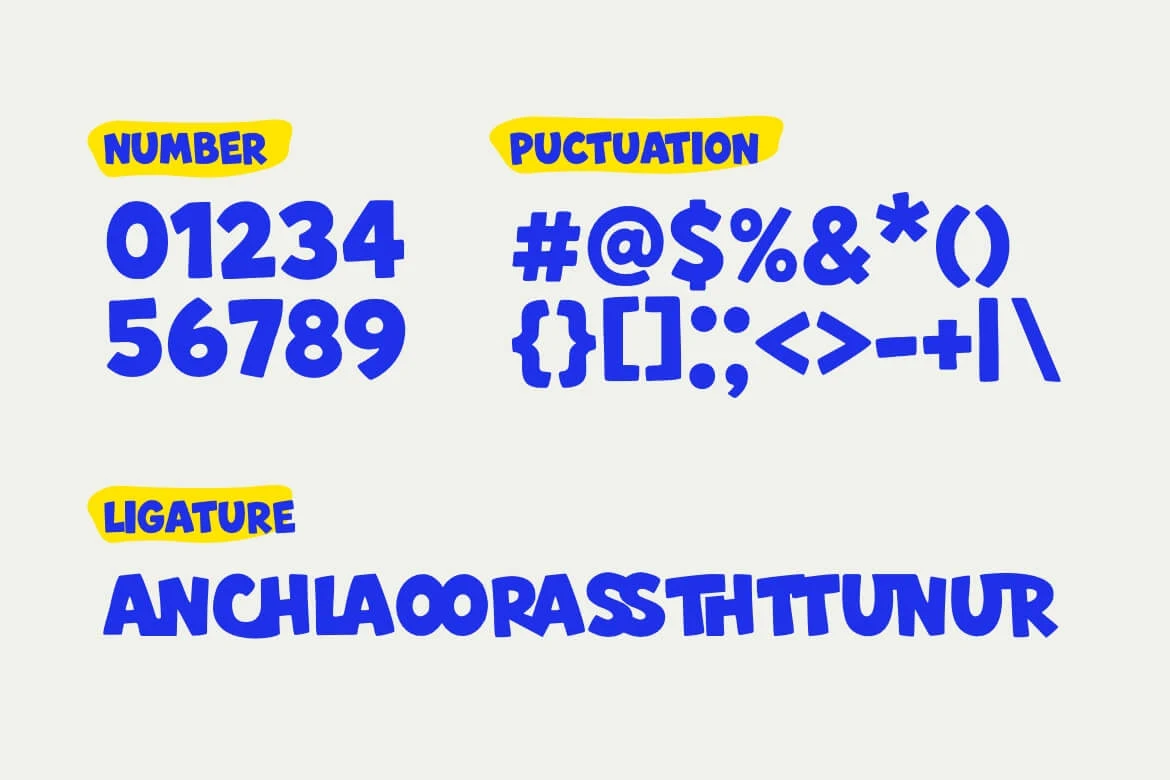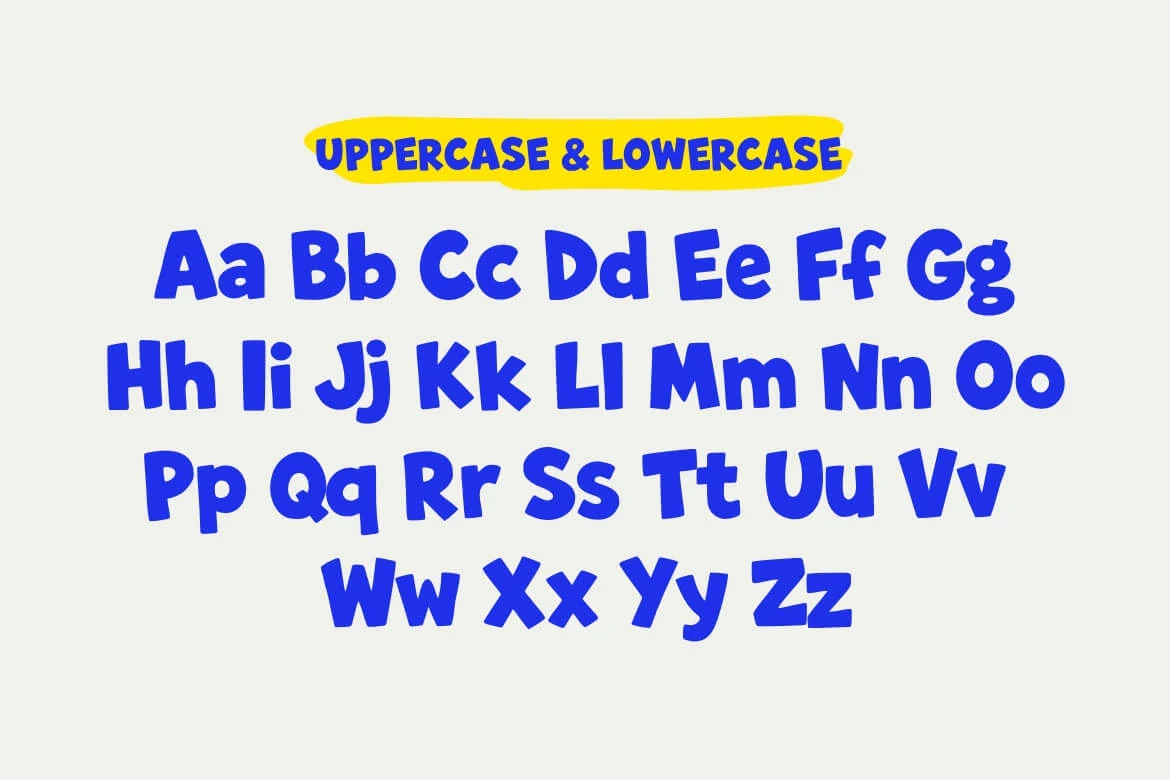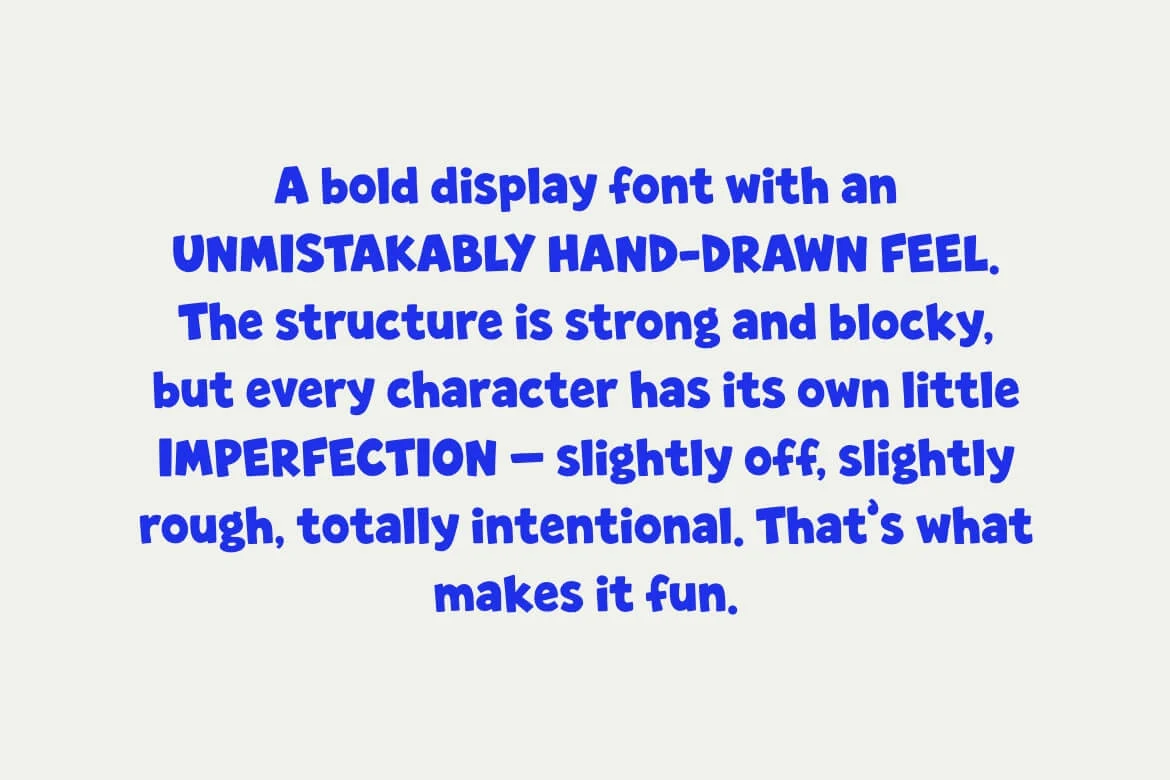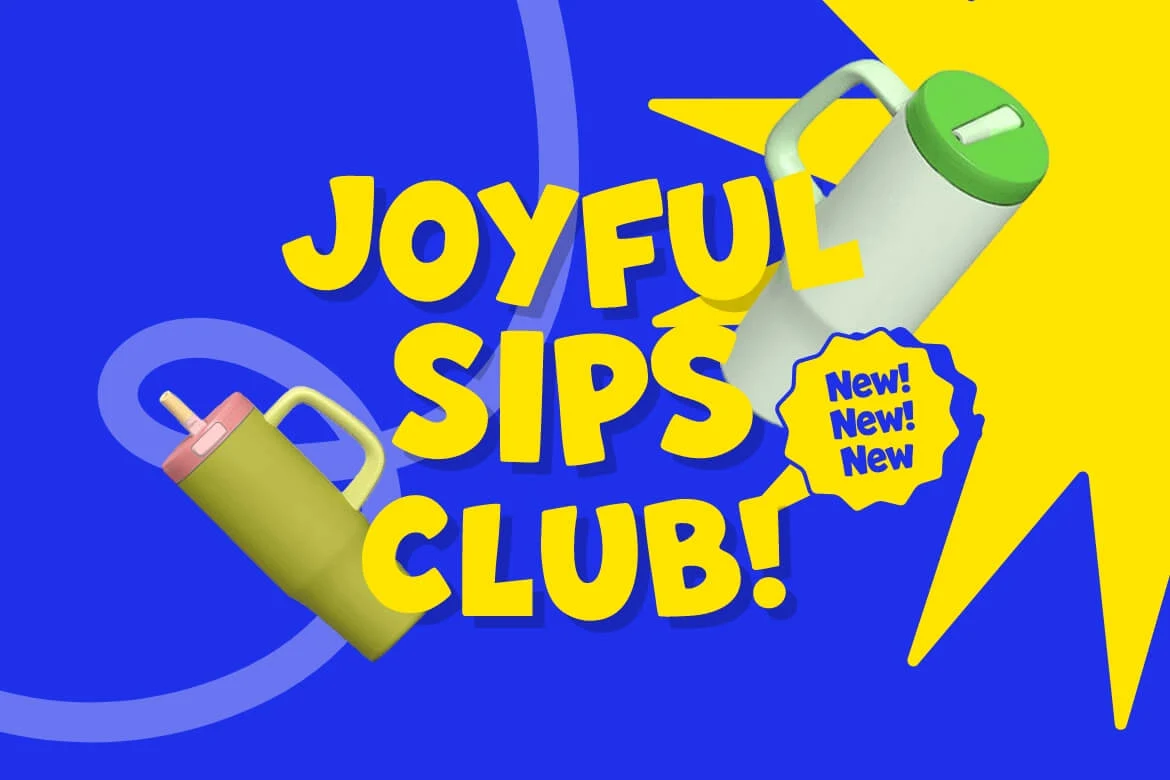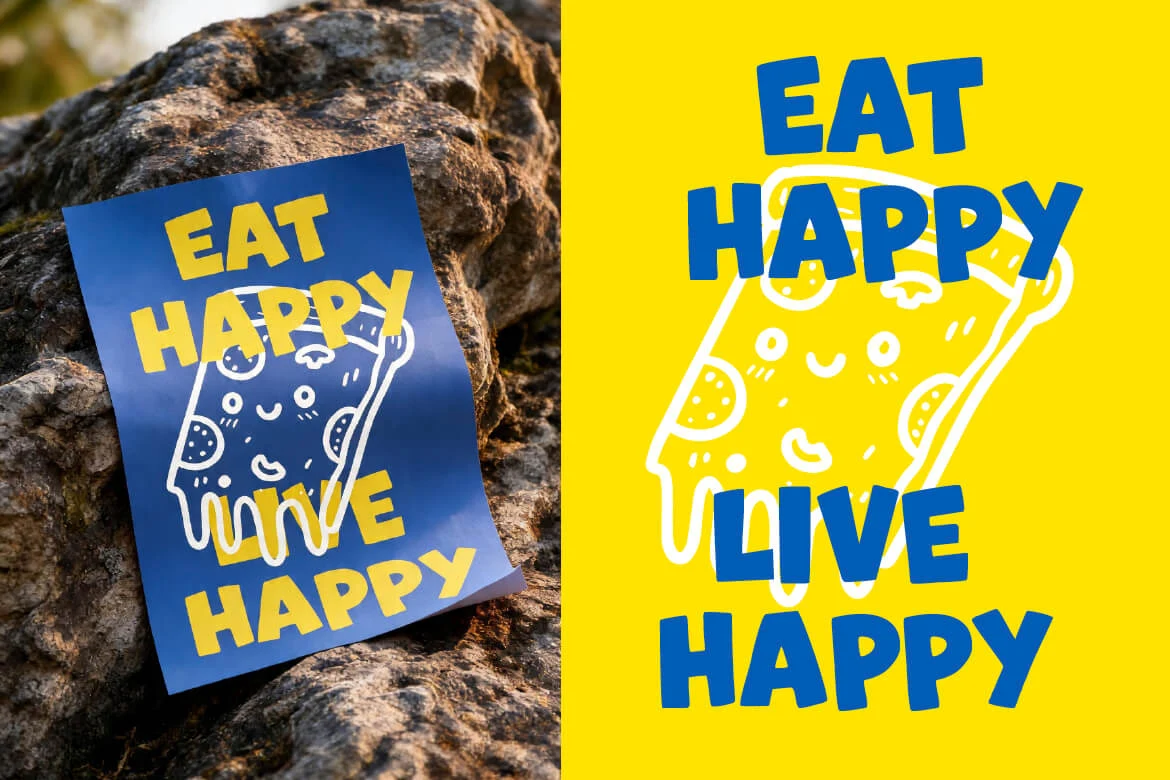
Bumpy Slop
Bumpy Slop is a hand-drawn display font built with bold, solid shapes and quirky, imperfect edges. Rather than chasing geometric perfection, it keeps the raw, tactile charm of pen on paper—giving your text genuine warmth and personality without feeling overdone.
It feels right at home on comic titles, children’s book covers, playful stickers, merch graphics, and social media quotes. The letterforms stay strong and legible at various sizes, making it easy to add a handmade character to your projects while keeping the message clear.